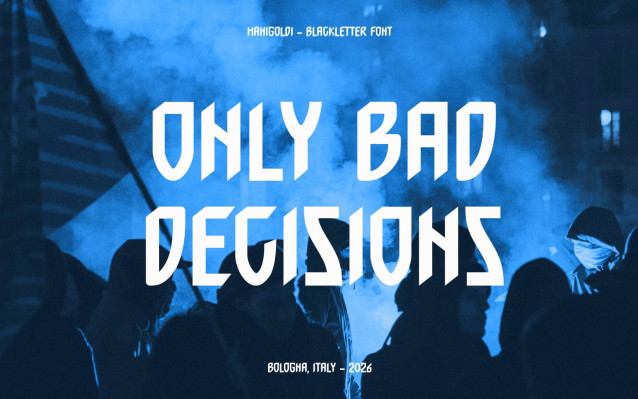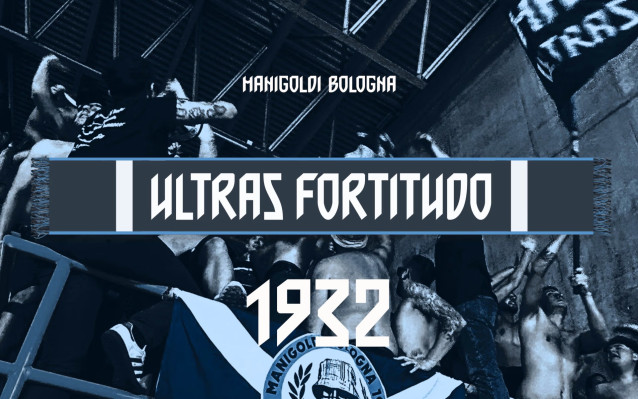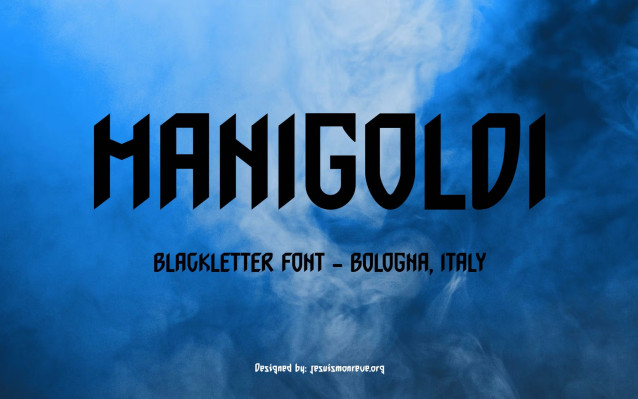
ManiGoldi Font
ManiGoldi Font – A Blackletter typeface inspired by the visual identity of local “tifosi” from Bologna, Italy.
Designed and distributed by Je Suis Mon Rêve in collaboration with Manigoldi.
| Designer Name: | Marco Ugolini |